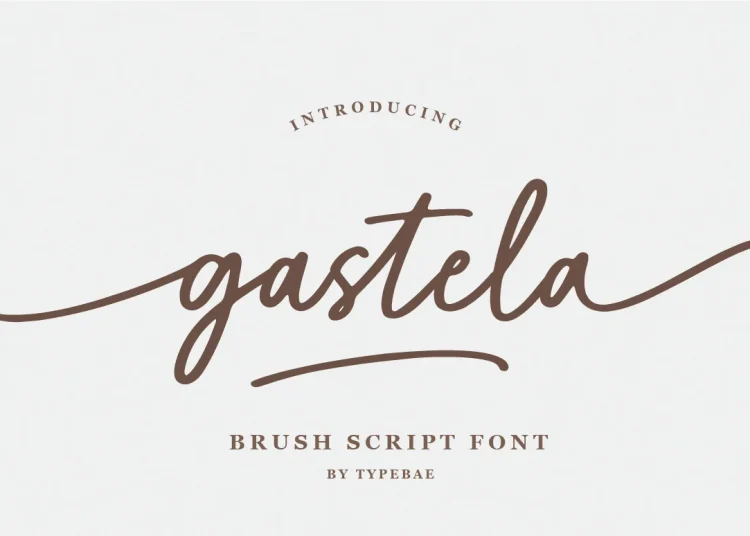
Gastela Font
Gastela is a beautifully elegant brush script font that features stylized tails and ligatures to create a smooth and sophisticated handwritten effect. Each letter is designed with graceful swashes at both ends, adding a touch of luxury and fluidity to your text.
For ease of use, the swashes (tails) are available as a separate utility, eliminating the need for additional software to support OpenType features.